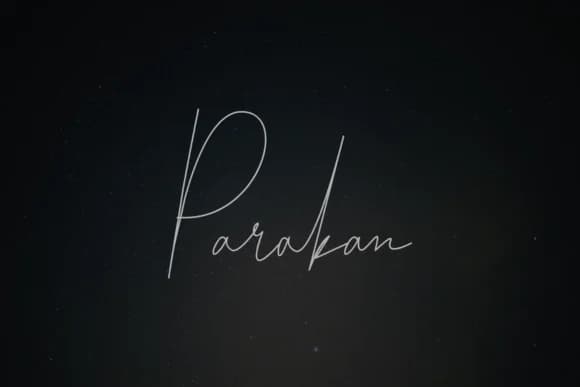
Parakan Script Font by zuzulgo studio is a contemporary handwritten typeface that brings genuine character to projects requiring a personal touch and authentic craftsmanship. Created with brushwork aesthetics in mind, this script captures the essence of hand-lettering while maintaining modern clarity in its letterforms and consistent baseline. The font's thoughtful construction and versatility make it ideal for wedding invitation suites where elegance and personality matter equally, luxury beauty brand packaging where authenticity signals quality and artisanal values, personalized greeting card designs that deserve distinctive lettering, and boutique social media graphics where custom letterwork sets independent brands apart from mass-produced competitors.
The deliberate handmade quality ensures your work avoids the sterile feel of overly-designed typefaces that dominate digital design. Whether you're developing a high-end cosmetics line, creating commemorative event signage, designing personalized stationery that reflects genuine craftsmanship, or building a distinctive brand identity for creative professionals, Parakan delivers visual credibility. The signature script style works particularly well across both print and digital applications where you want your audience to sense the intention, time, and care behind your brand vision.
Parakan Script Font is a script font that shines as a display or heading face. Pair it with a clean sans-serif or serif font for body text β the contrast creates a clear hierarchy while the two styles stay balanced and easy to read.